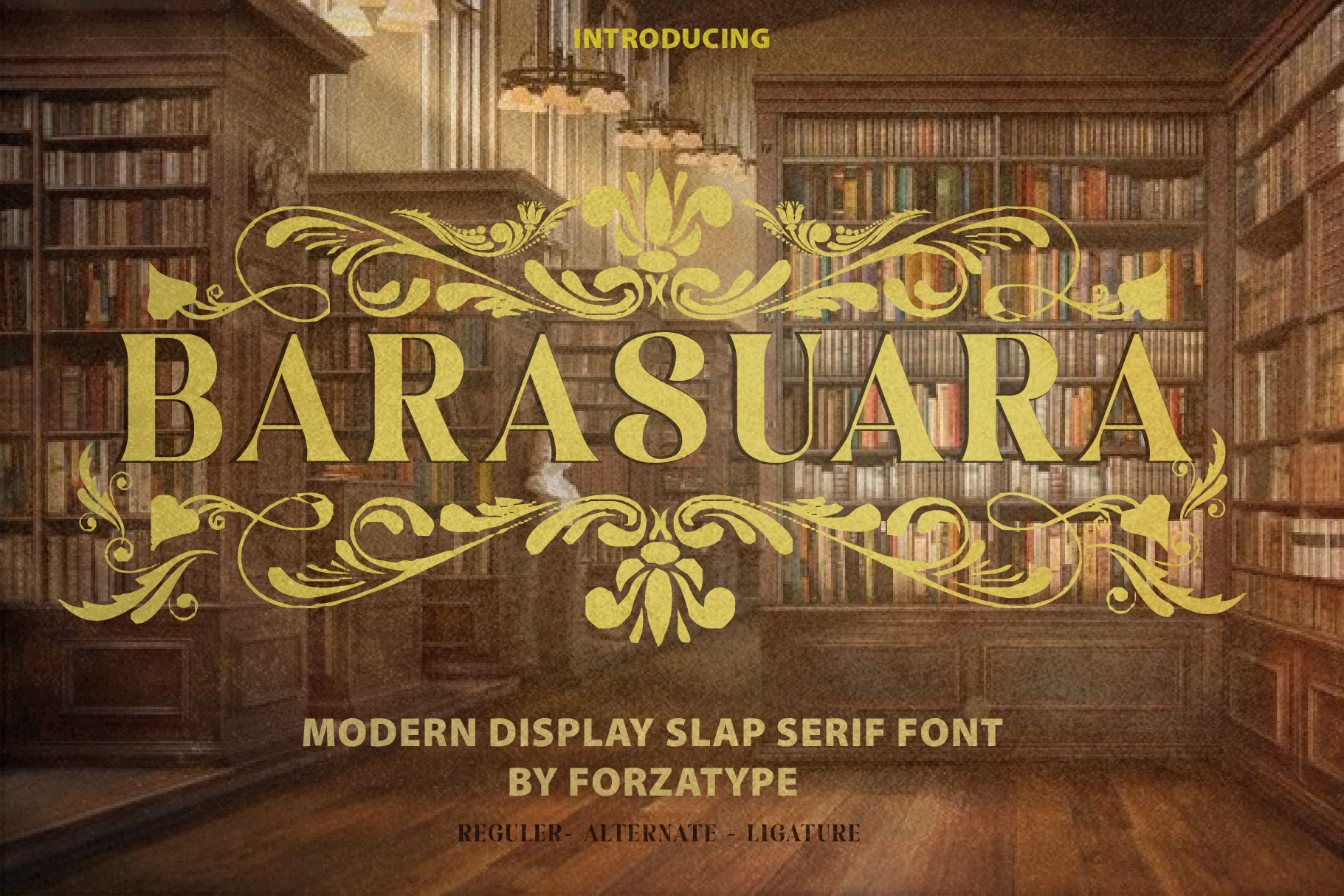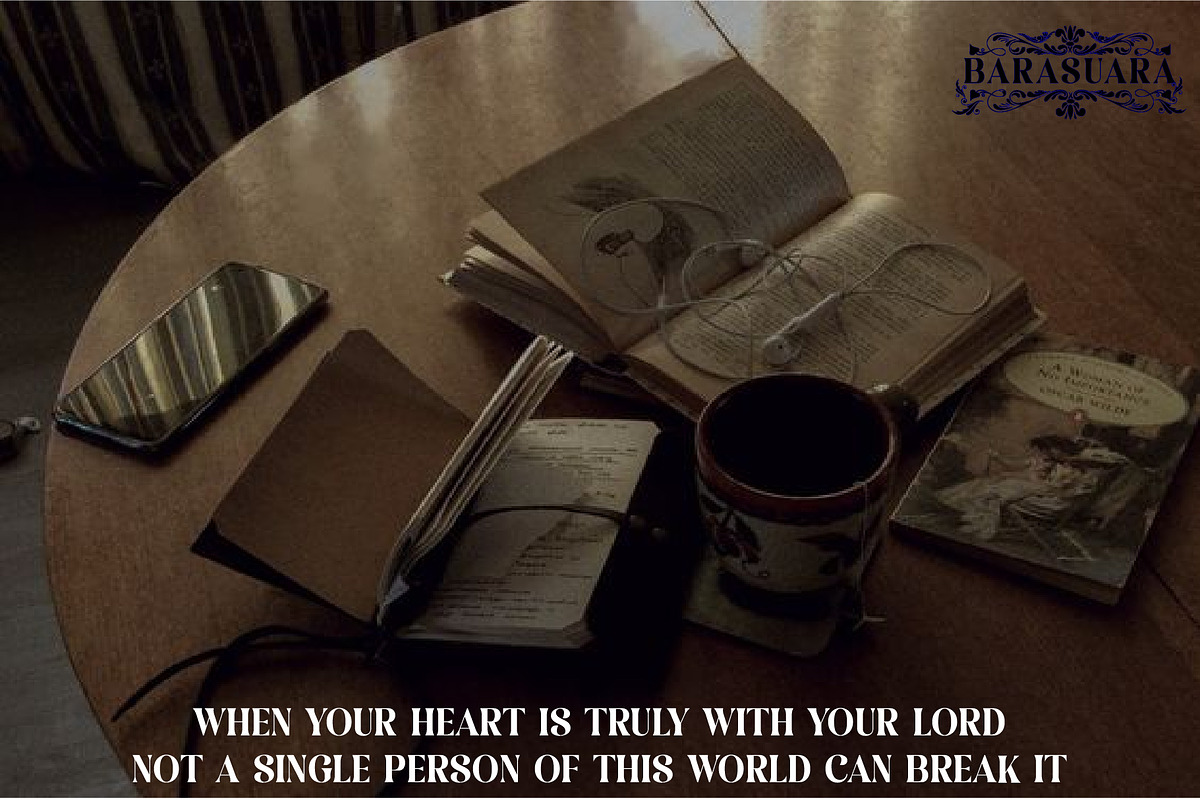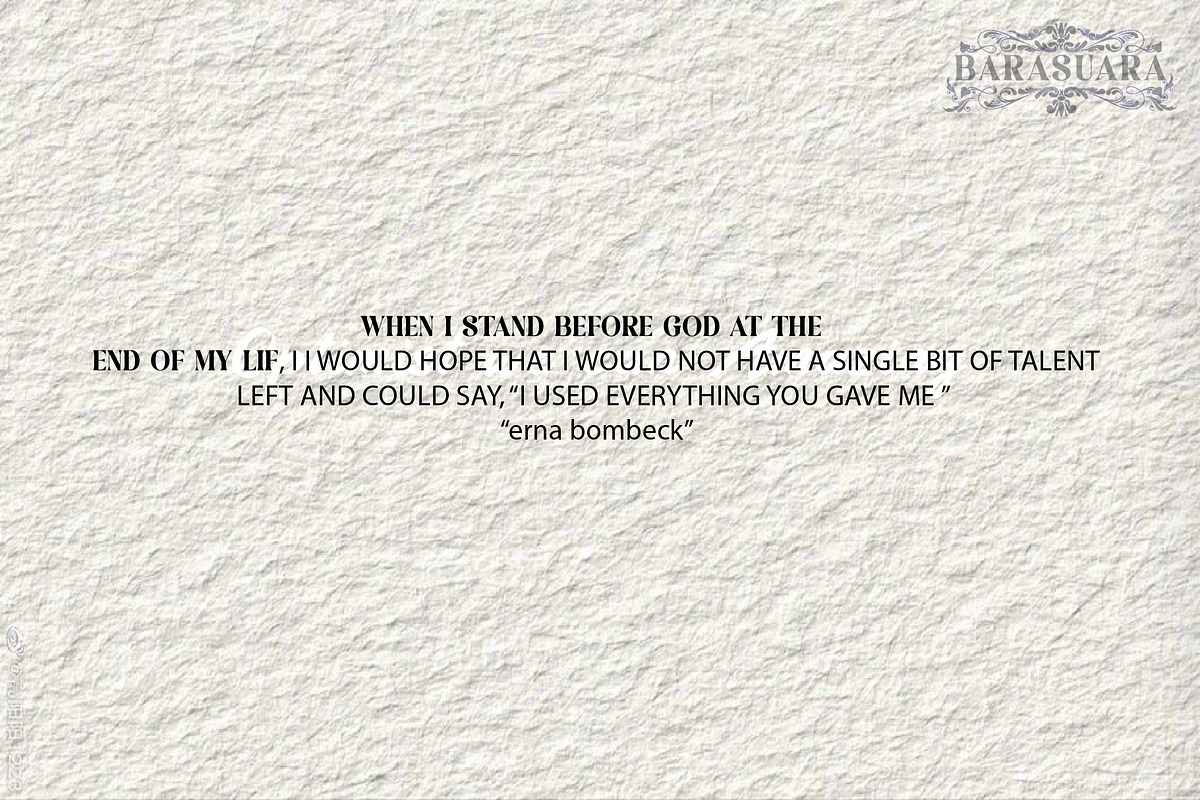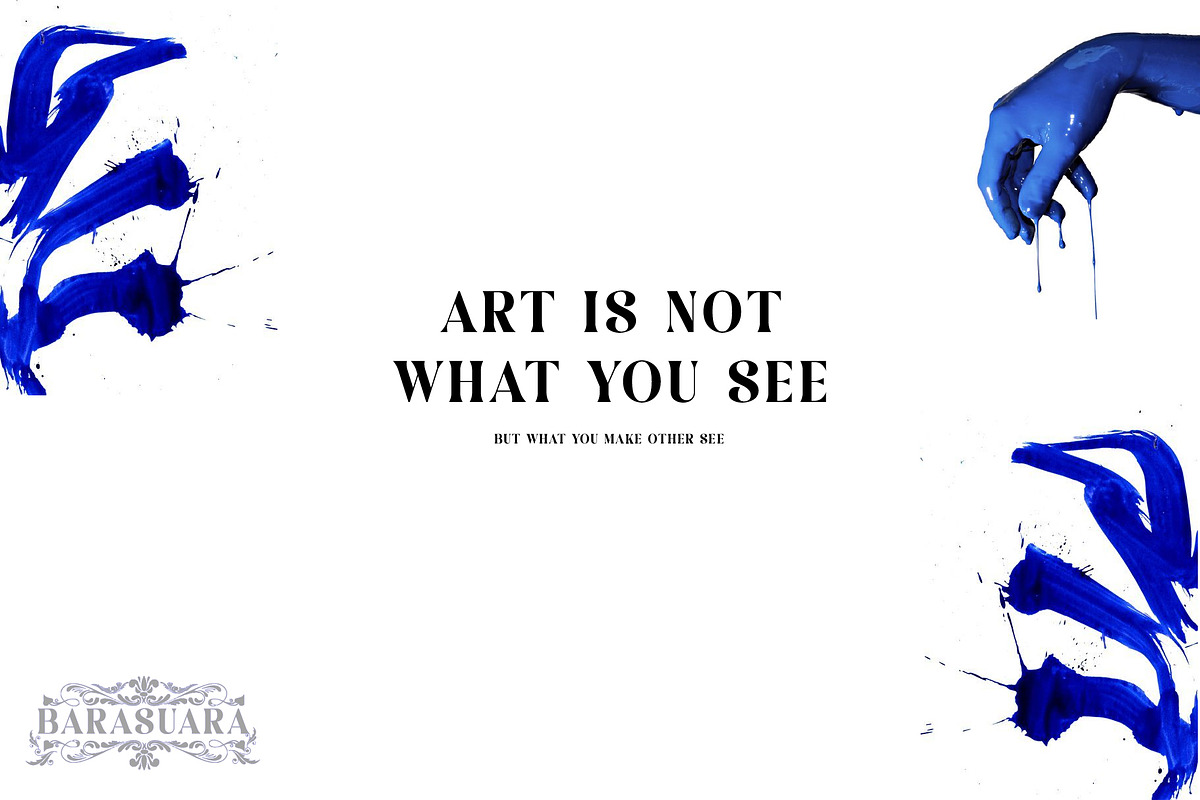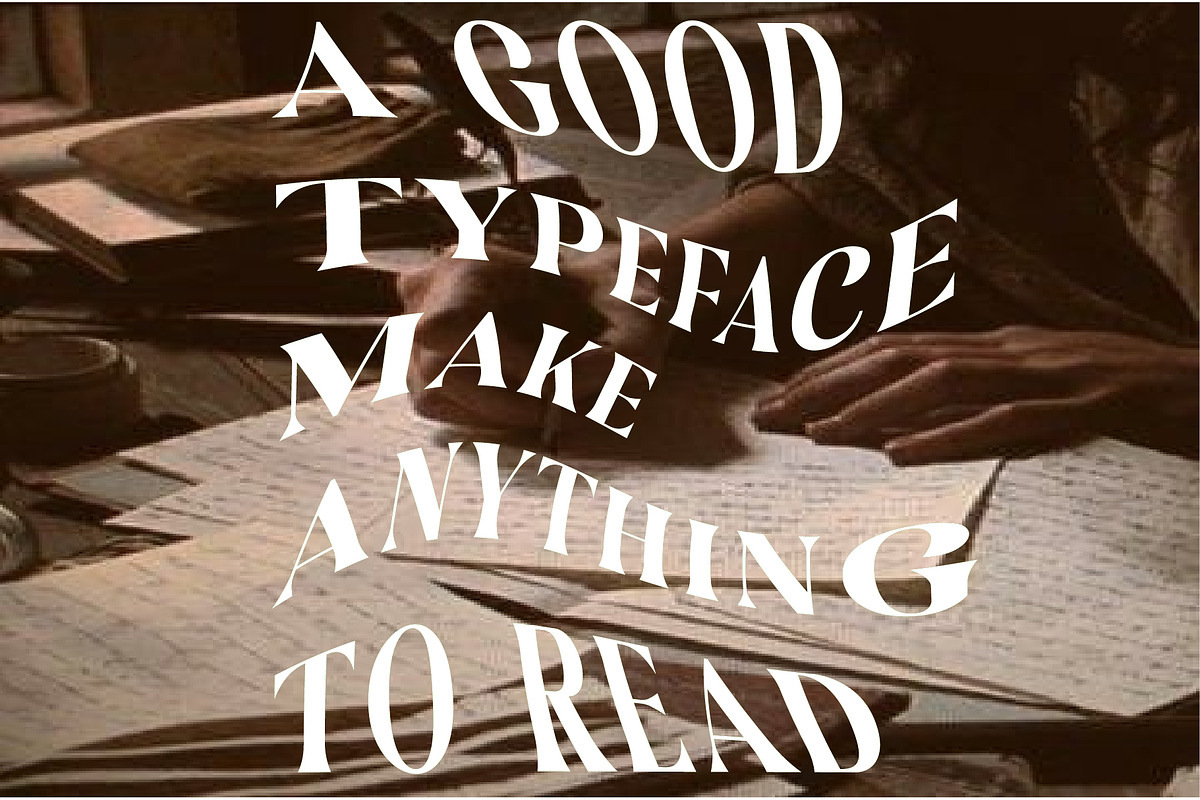
Barasuara Font Series | Forzatype
In the world of graphic design, every character carries a profound story. The same goes for barasuara, a blend of classic modernity and personal touch in the form of a typeface. Behind its captivating appearance lies a rich philosophy and essence that can inspire its users.design represents a harmonious blend of classic and modern elements. Its elegant lines and flowing shapes create an undeniable aura of luxury. Yet, within it lies gentleness and intimacy portrayed through handwritten font touches. This combination not only creates a captivating design but also provides space for unlimited expression and creativity.